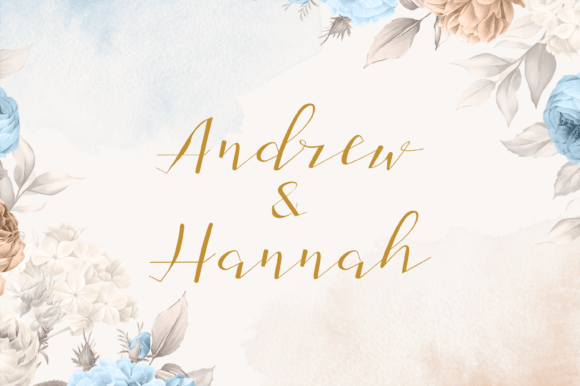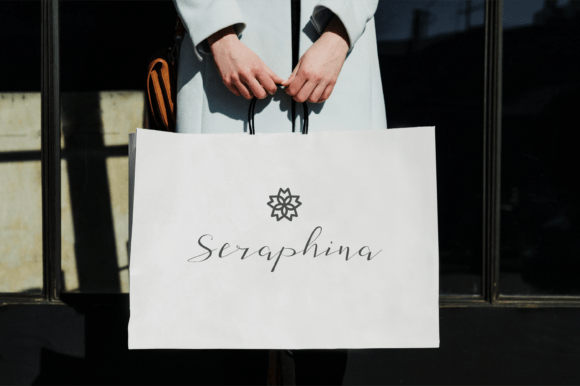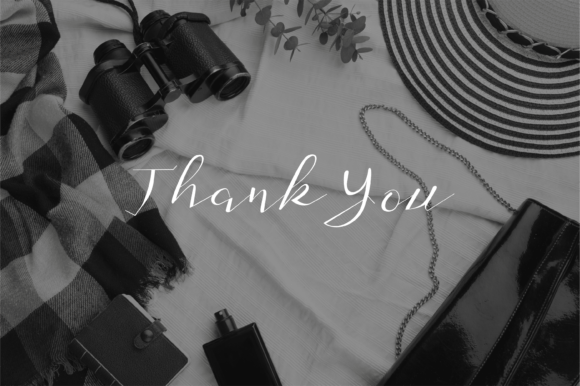
Introduction to Royal Flow Font
Have you ever found yourself stuck in a creative rut, unable to convey the elegance and sophistication you envision for your project? The perfect font can be the key to unlocking that refined touch, and that’s where the Royal Flow Font comes in. This beautiful script font is designed to evoke a sense of luxury and refinement, making it the ideal choice for designers looking to create a high-quality impression.
Whether you’re working on a logo, a brochure, or a website, the Royal Flow Font is sure to bring a touch of class to your design. Its delicate strokes and graceful curves make it a versatile design resource that can be used in a variety of creative projects. And the best part? It’s free to download, making it a valuable asset for designers of all levels.
Key Features of Royal Flow Font
- Unique, hand-drawn design ideal for creative projects and artistic expressions.
- Perfect for designers looking for a unique and elegant font to enhance their creative projects, from branding and marketing materials to digital art and typography.
Honest Review: Royal Flow Font
As a designer, I’m always on the lookout for high-quality design resources to elevate my creative projects. The Royal Flow Font has caught my attention, and I’m excited to share my honest review.
- The Royal Flow Font has a unique, elegant design that’s perfect for creating a sophisticated look in my projects.
- The font has a transparent background, making it easy to customize and use in a variety of design contexts.
- The font is limited in its character set, which may not be ideal for longer blocks of text.
- It’s not a particularly versatile font, and it may not be suitable for all types of design projects.
Overall, I’m impressed with the Royal Flow Font, and I appreciate its unique design and free availability. While it may have some limitations, I think it’s a valuable addition to any designer’s toolkit.
The Royal Flow Font is commonly used in creative projects, such as logos, business cards, and presentations. It’s also a great font to use in social media graphics, flyers, and brochures. With its high quality and transparent background, the Royal Flow Font is a versatile design resource that can be used in a variety of design projects.